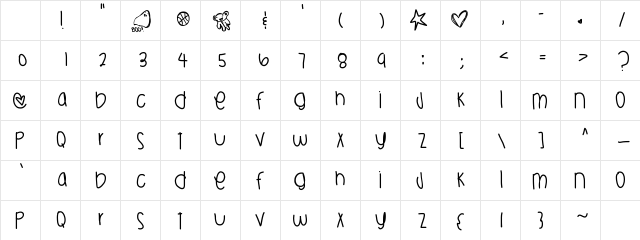
Complete HaloweenIsBackYeahhhh Medium glyph index. Displaying only characters natively supported by HaloweenIsBackYeahhhh Medium font.
HaloweenIsBackYeahhhh is a composed and adaptable typeface that performs quietly and consistently across a wide range of design contexts.